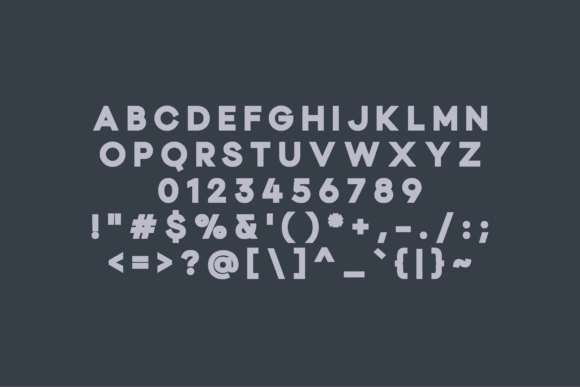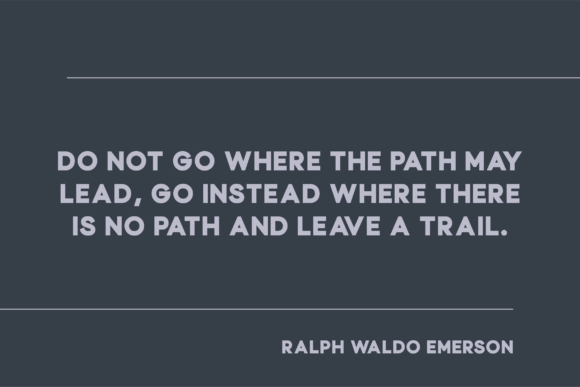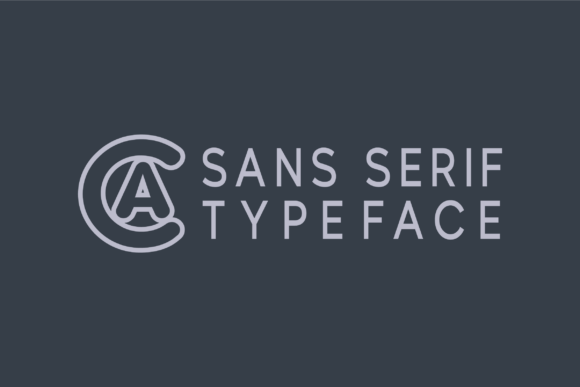
Discover the Perfect Typography for Your Creative Projects
Do you remember that moment when you finally found the perfect font to elevate your design project? The one that makes your logo shine, your wedding invitation pop, or your advertisement stand out? For designers, finding the right typography can be a game-changer. And today, we’re excited to introduce you to the Casualine Font, a modern, classy sans serif typeface that’s about to become your new favorite.
The Casualine Font is a versatile font that contains upper characters, numbers 0-9, and a range of punctuation and symbols, making it perfect for a wide range of applications, from logos and weddings to invitations and advertisements. With its clean and sophisticated design, the Casualine Font is a valuable addition to any designer’s toolkit, offering endless possibilities for creativity and expression.
Casualine Font Key Features
- Unique Characteristics: The Casualine Font features a unique blend of casual and elegant elements, making it perfect for creating a relaxed yet sophisticated atmosphere in design projects.
- Font Styles: Casualine Font includes multiple font styles, including Regular, Italic, Bold, and Bold Italic, providing designers with a range of options to suit their creative needs.
- Language Support: The font supports a wide range of languages, including English, Spanish, French, German, Italian, and many others, making it a versatile choice for global design projects.
Casualine Font Review
Overall, I think the Casualine Font is a solid choice for designers looking for a modern and friendly sans-serif typeface. Here are some things that I think work well: ✨
- It’s incredibly versatile and can be used for a wide range of projects, from logos to body text.
- The font is highly customizable, with a range of weights and styles to choose from.
- It’s optimized for digital use, making it a great choice for websites, apps, and other digital projects.
- The font may not be suitable for high-end or luxury brands, as it has a somewhat informal feel.
- The font’s x-height is slightly smaller than average, which can make it difficult to read at very small sizes.
- There may be some issues with font rendering on older browsers or operating systems.
Overall, I think the Casualine Font is a great choice for designers who want a modern and approachable typeface that’s easy to use and customize. While it may not be the best choice for every project, it’s definitely worth considering for the right use case.
The Casualine font is ideal for creating casual, friendly designs. Use it for:
Blog posts and articles
Social media graphics
Marketing materials and flyers
Personal projects and portfolios